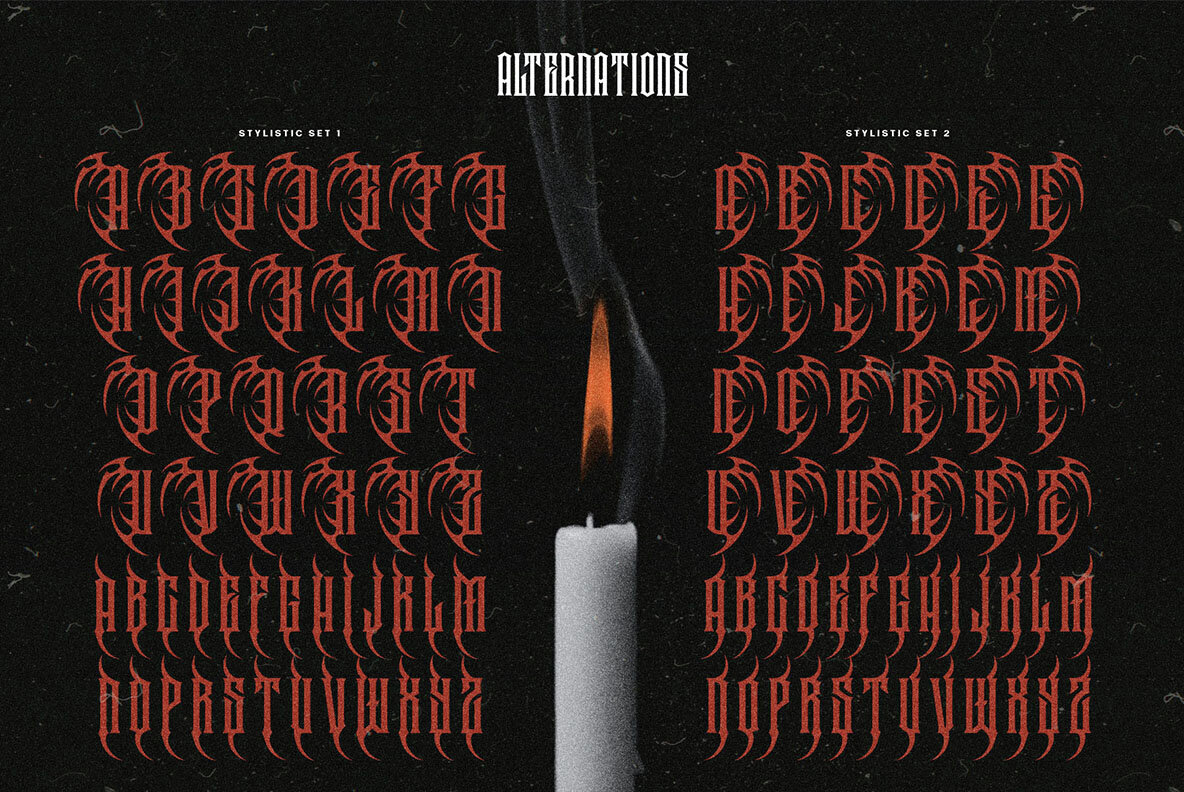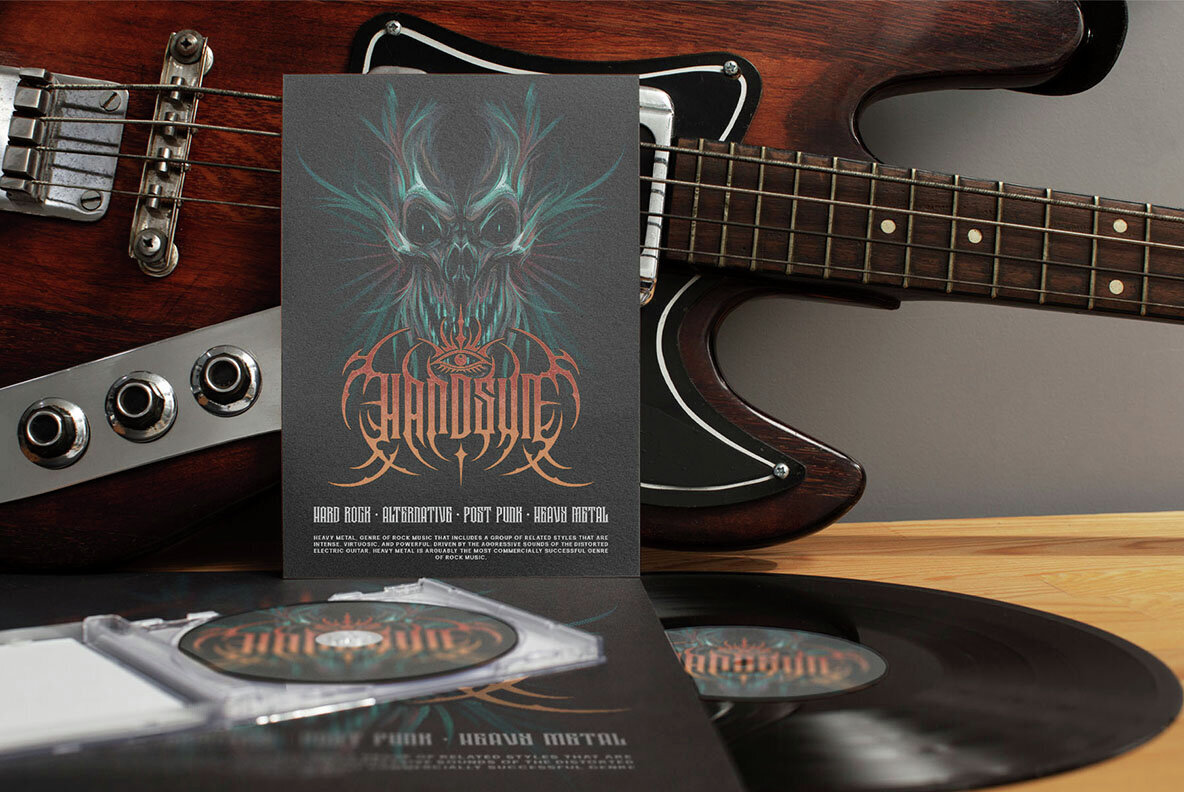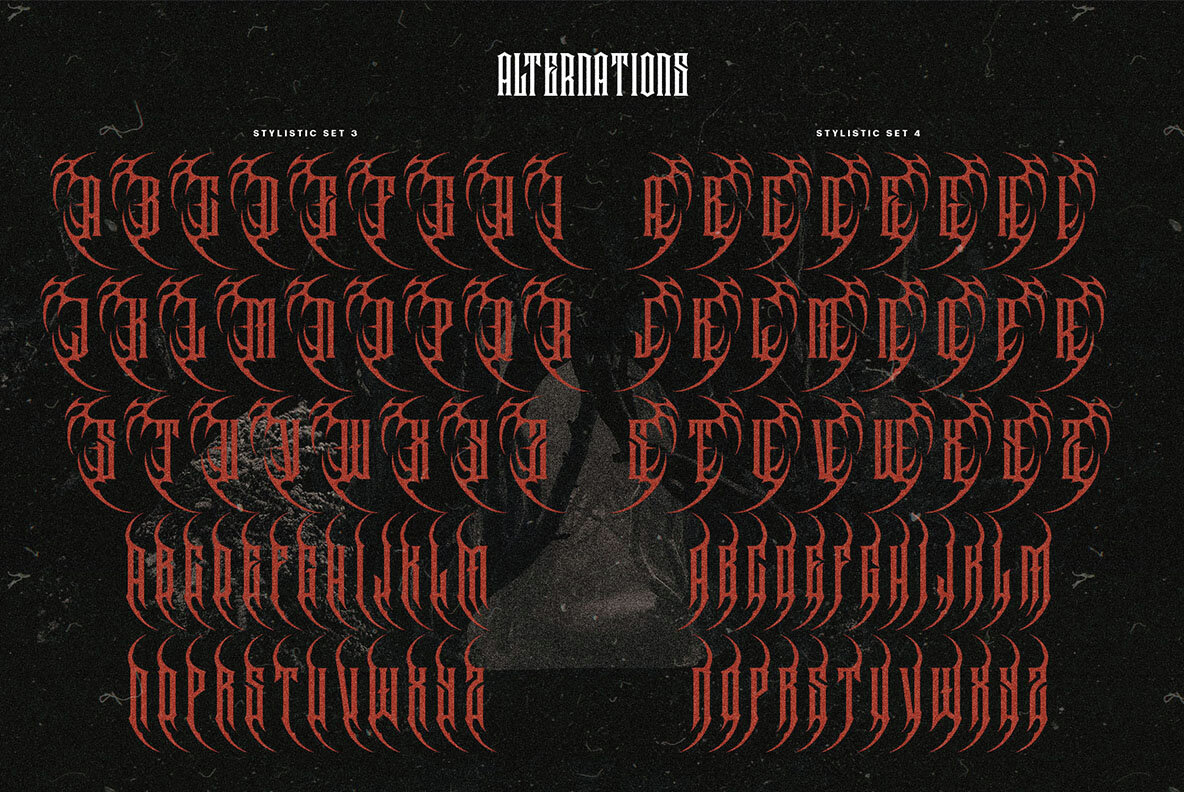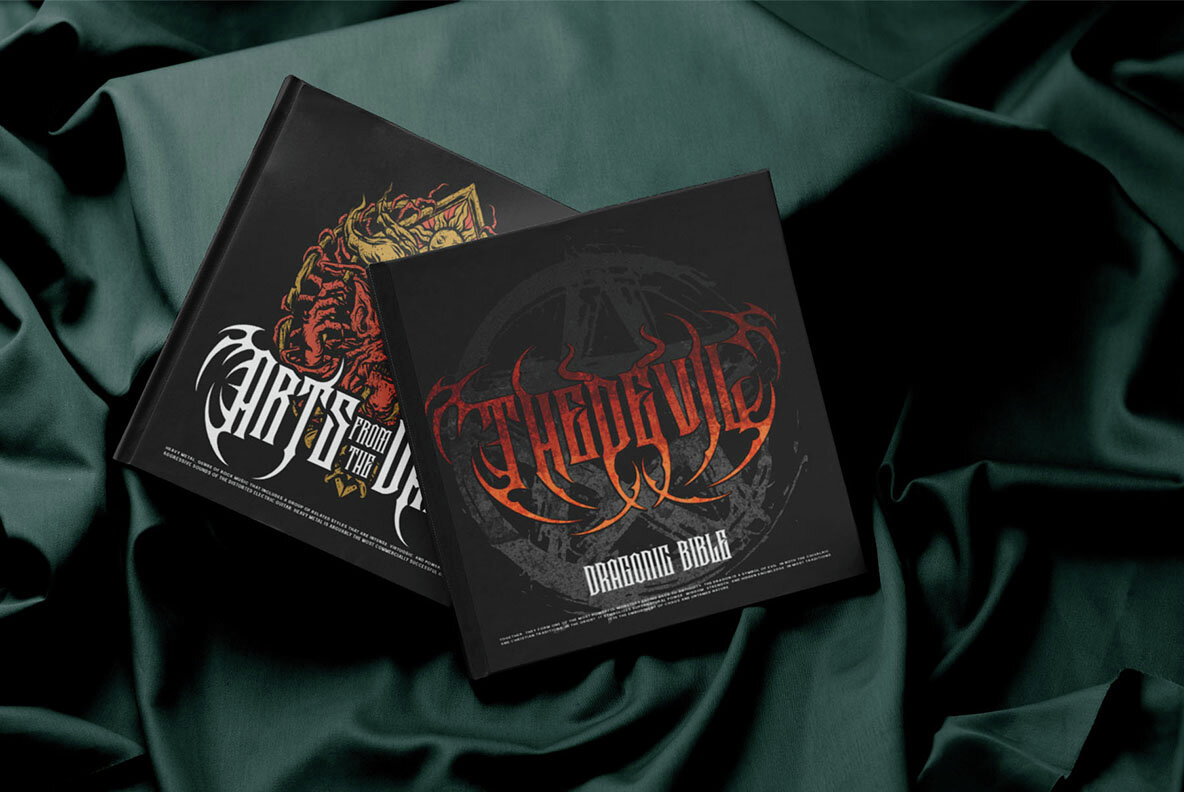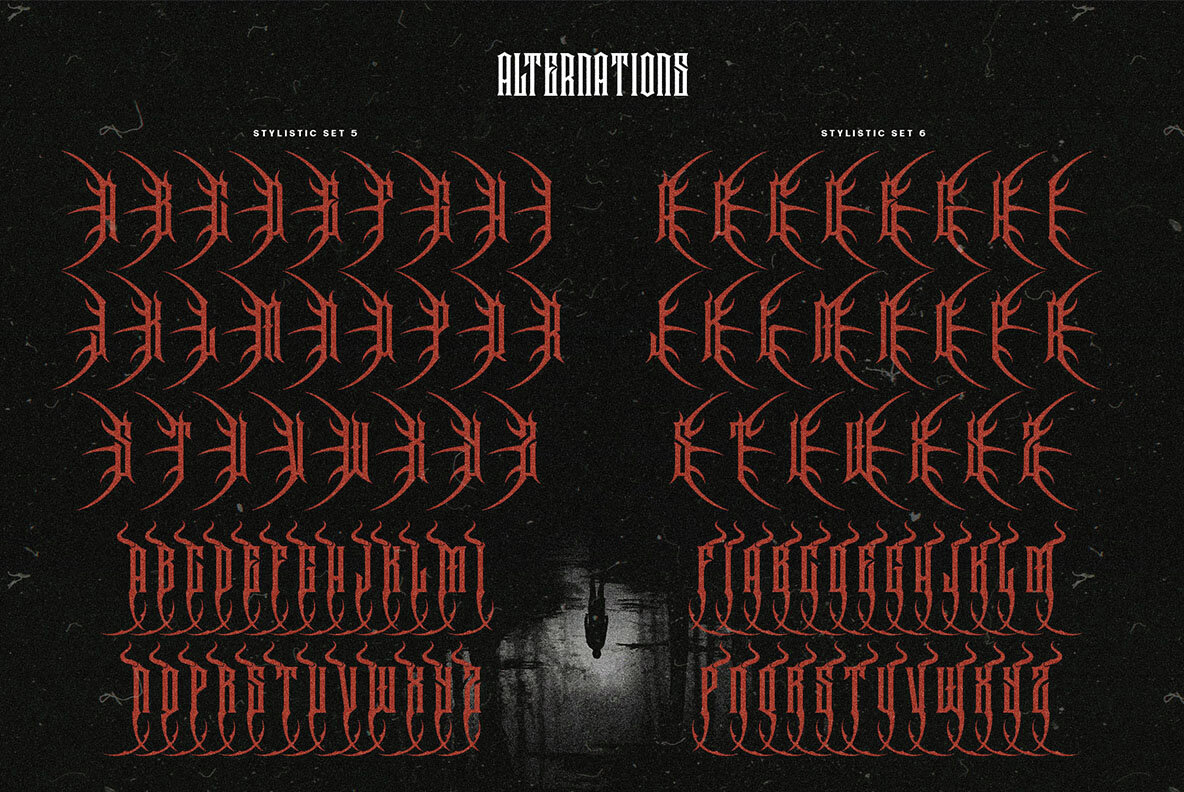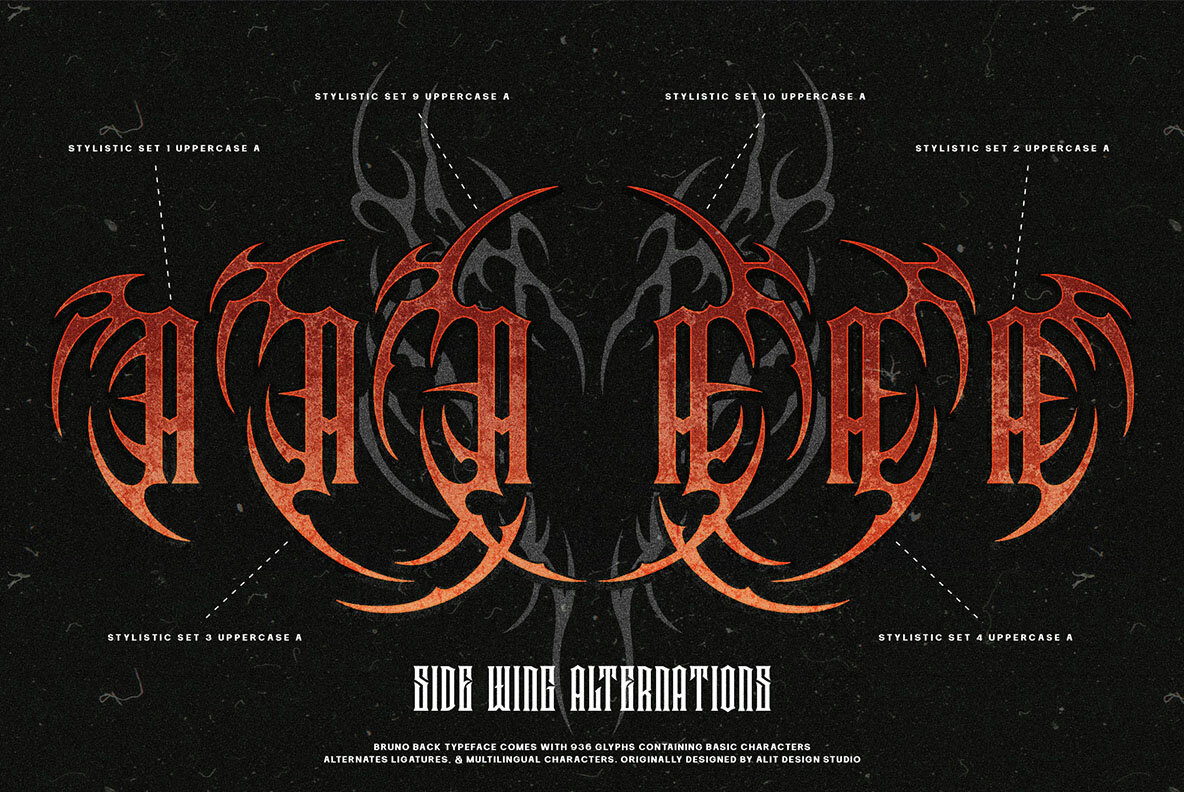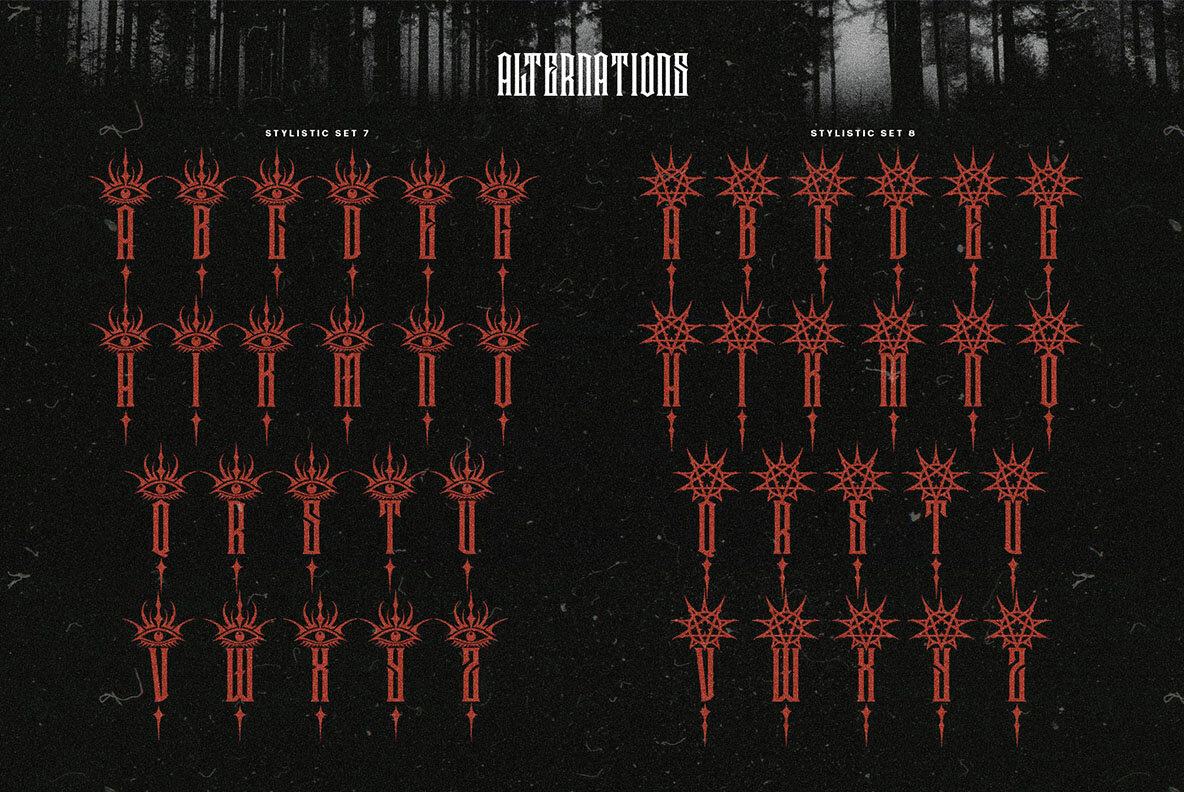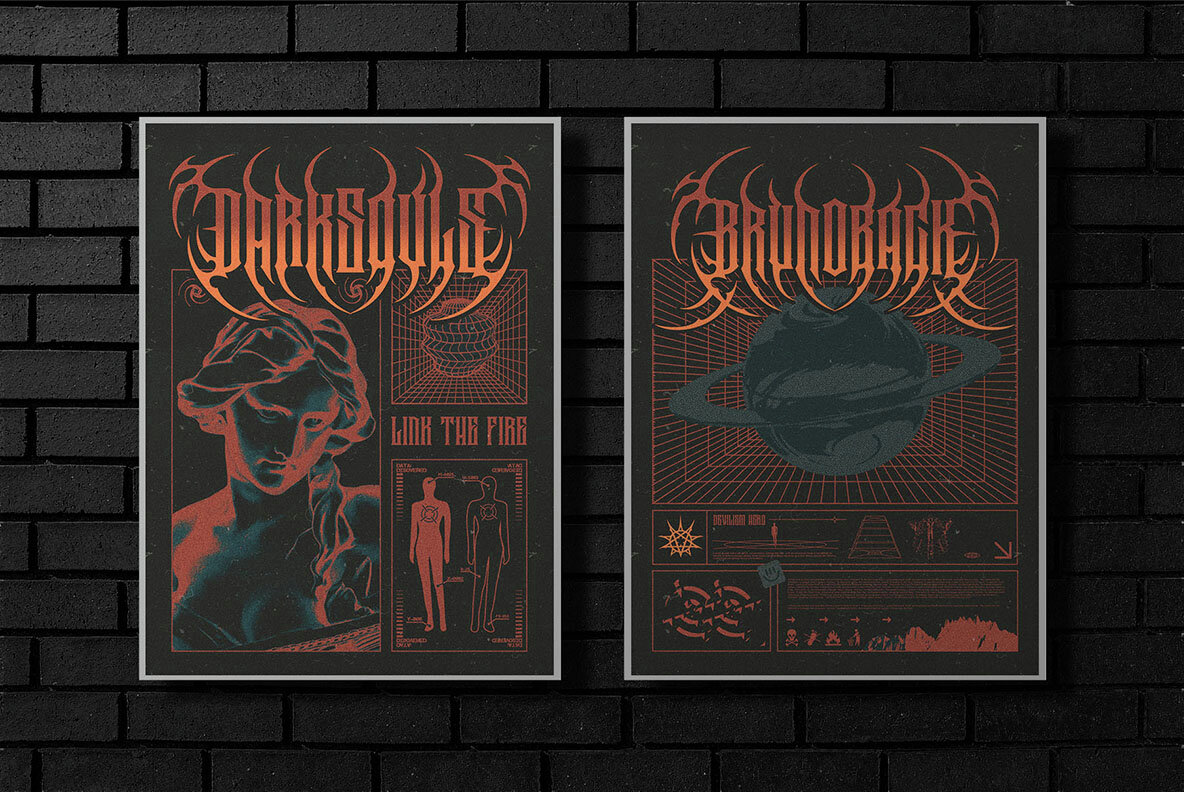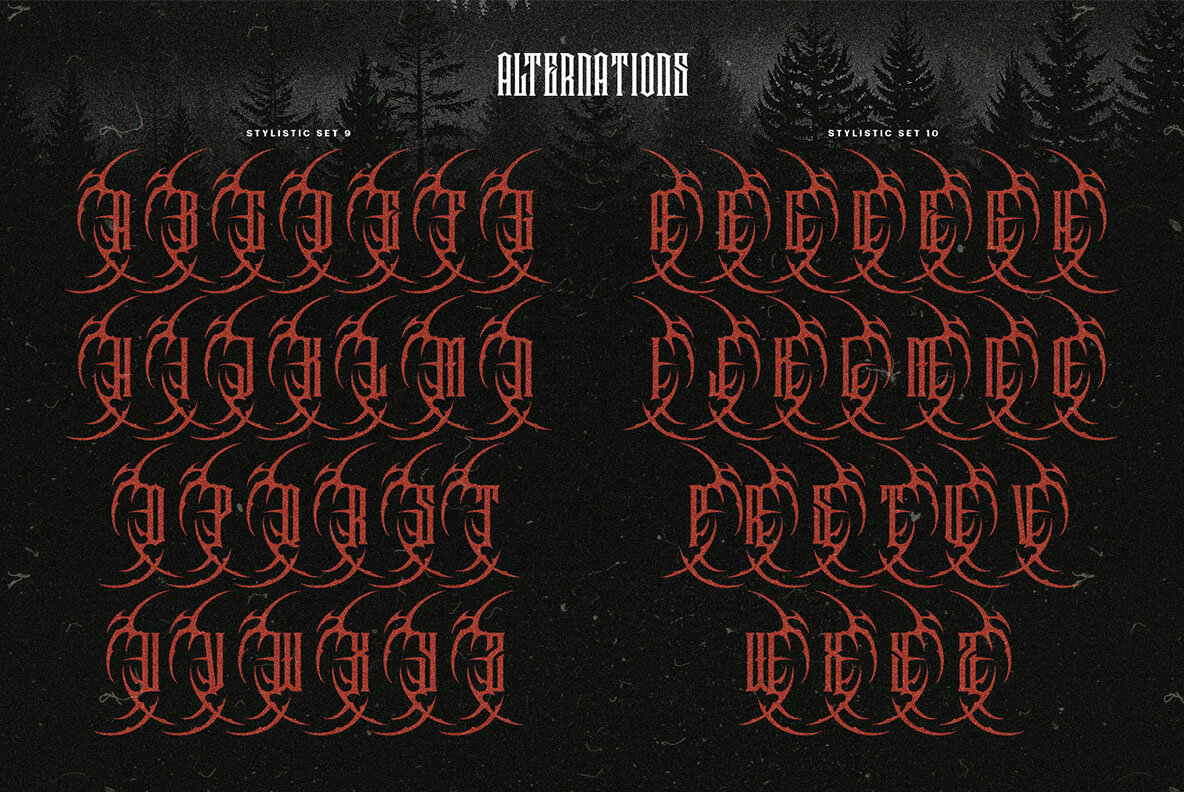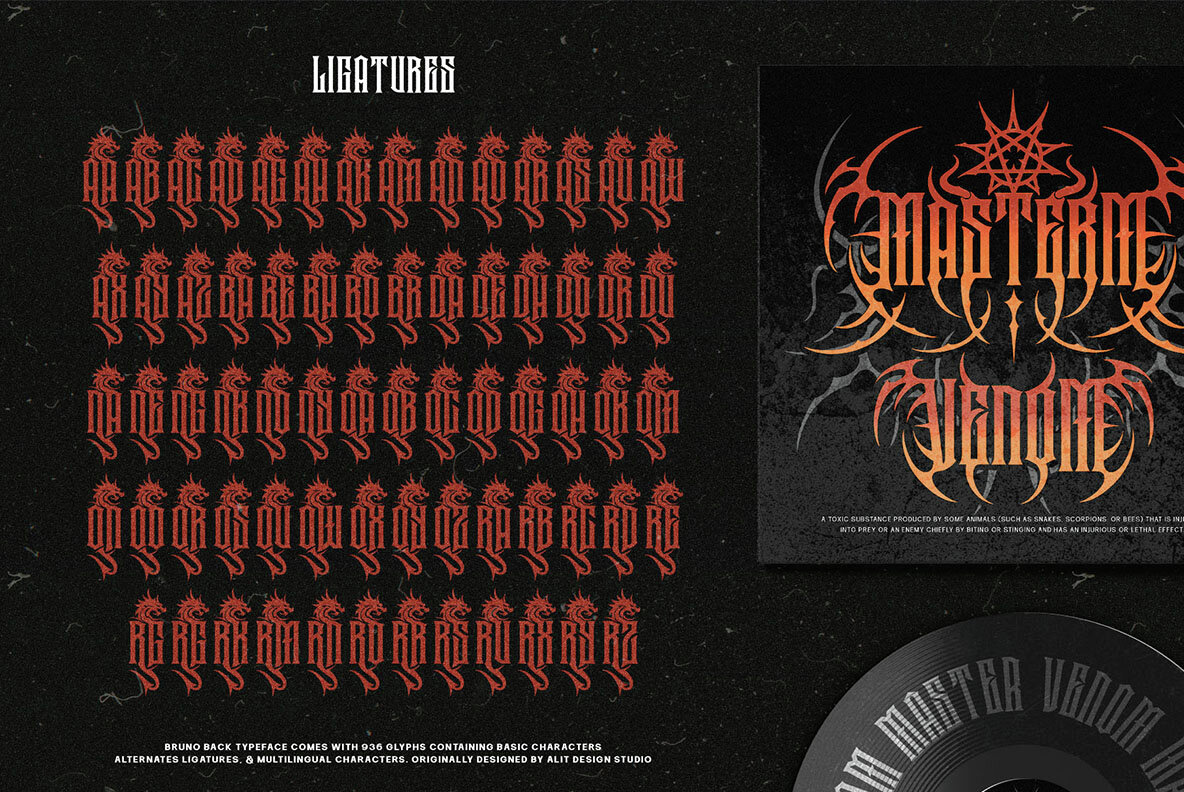
Bruno Back Font
Bruno Back Regular
Bruno Back Typeface combines traditional blackletter aesthetics with a contemporary twist, perfect for those seeking an adventurous design. This typeface is ideal for projects that require a raw and intense feel, such as movie titles and gaming adventures. It breathes life into dark themes while maintaining versatility for a wide variety of applications.
- Comprehensive Character Set: Includes 936 characters to fulfill all creative requirements.
- Alternative Glyphs: Offers multiple alternatives to introduce variety and uniqueness.
- Elegant Ligatures: Unique ligatures for seamless typography.
- Decorative Swashes: Add flair and drama to your designs.
- Multilingual Support: Handles a wide range of languages for global outreach.
Bruno Back Typeface is your companion for crafting intense gaming logos, epic movie covers, or any project that embodies boldness and power. Its modern blackletter design ensures each character conveys strength and a narrative of its own.